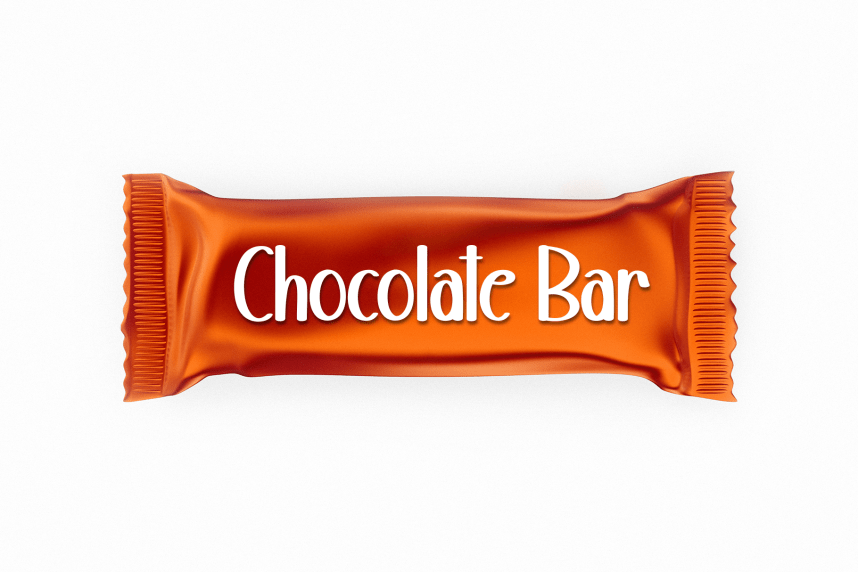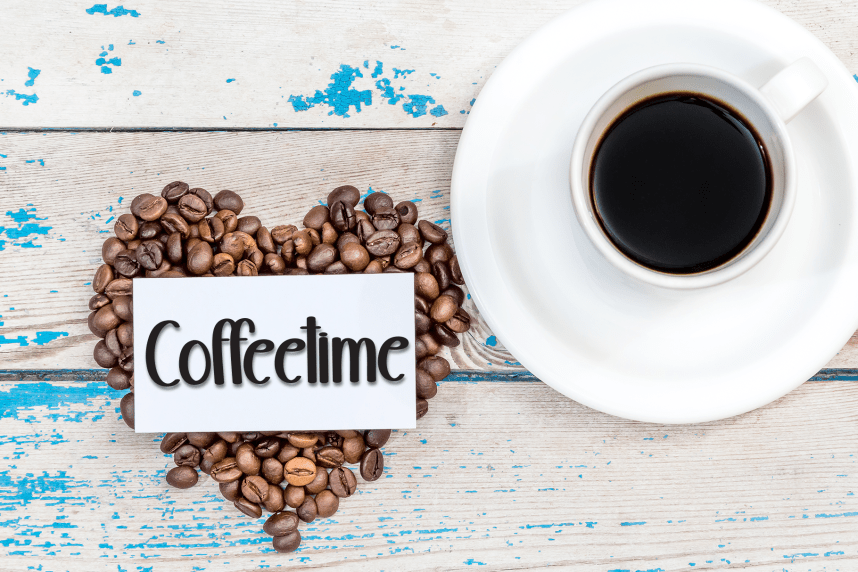
Snowman – Simple Handmade Font is a sweet and friendly handwritten display font. Cute and fun, this font is ideal for writing wedding invitations, cards, or any other design that might need a playful touch!